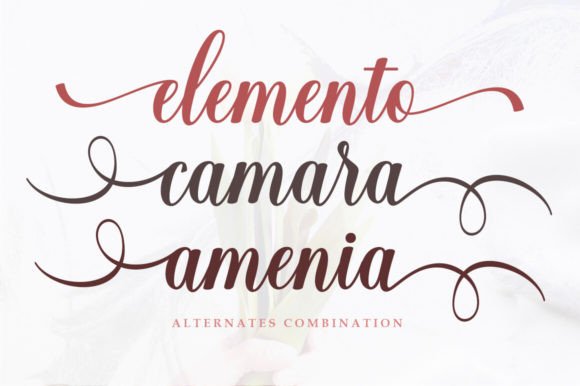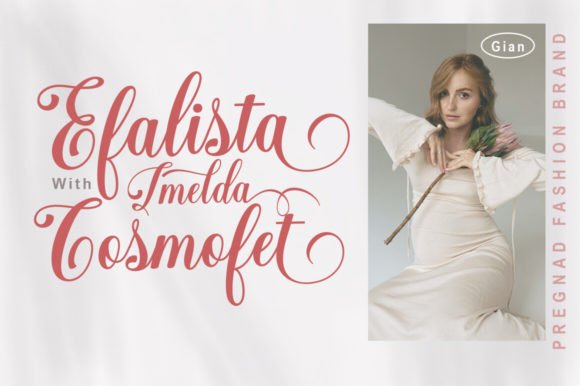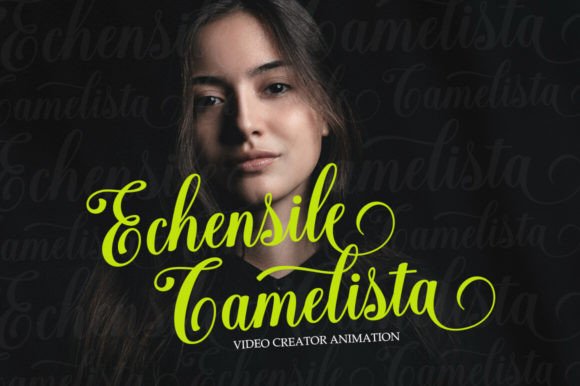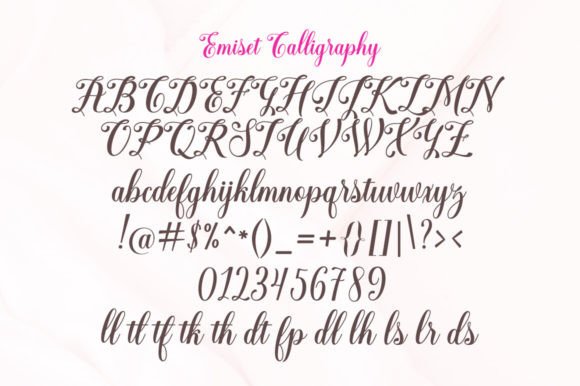
Emiset Calligraphy Font
Emiset Calligraphy is a gorgeous handwritten font that impresses through its natural and elegant style. Add it to your most creative ideas, and notice how it transforms them into authentic pieces of art!